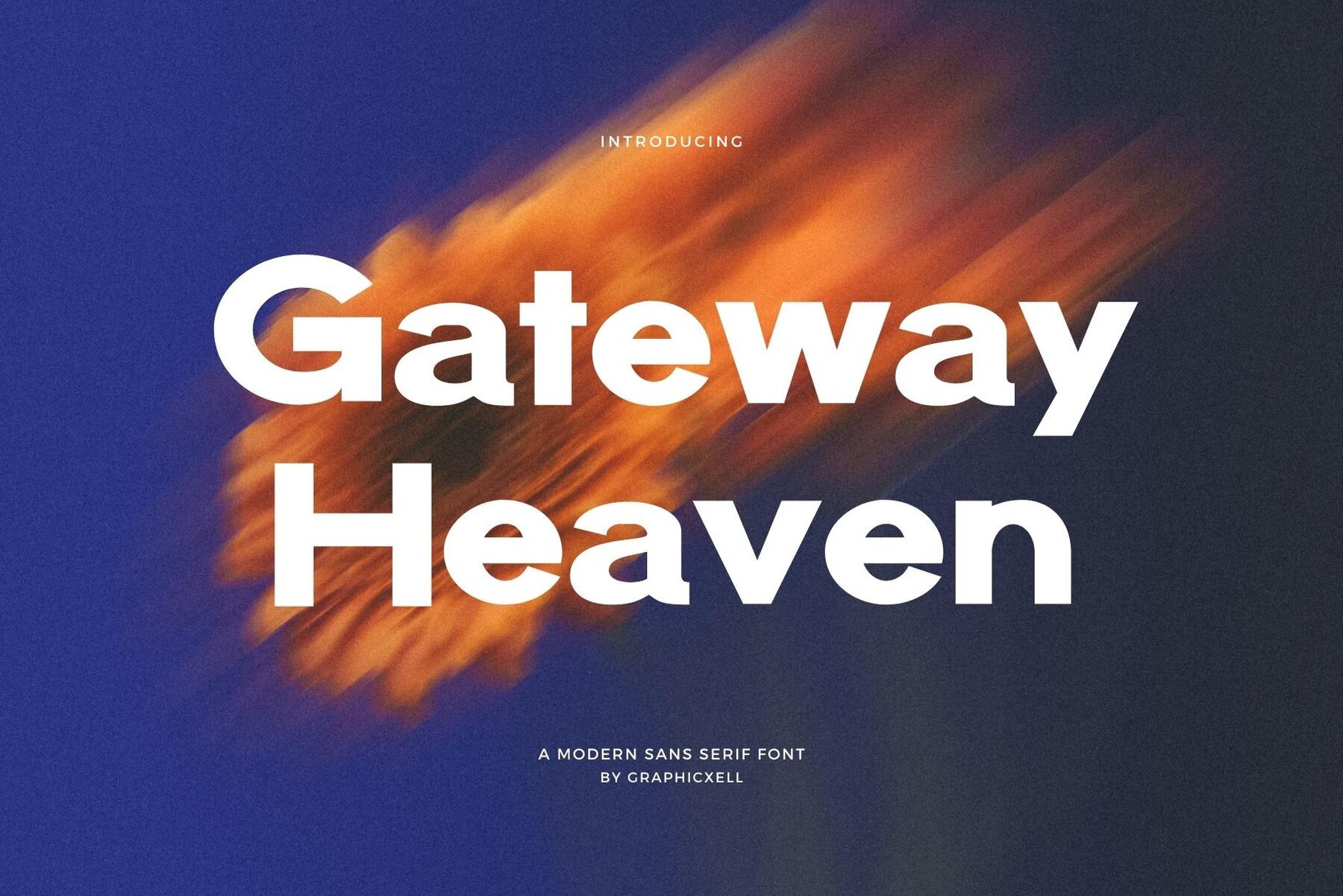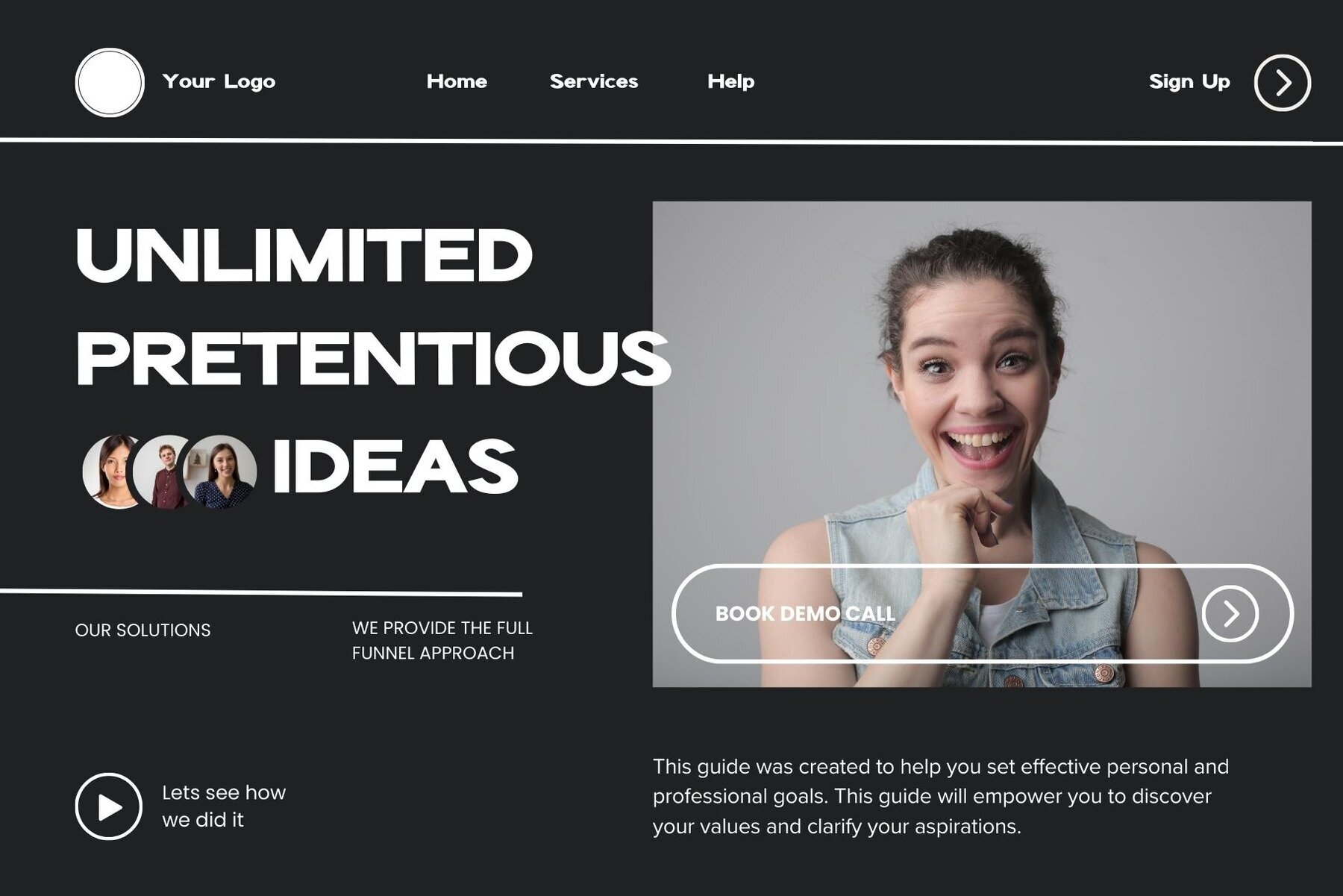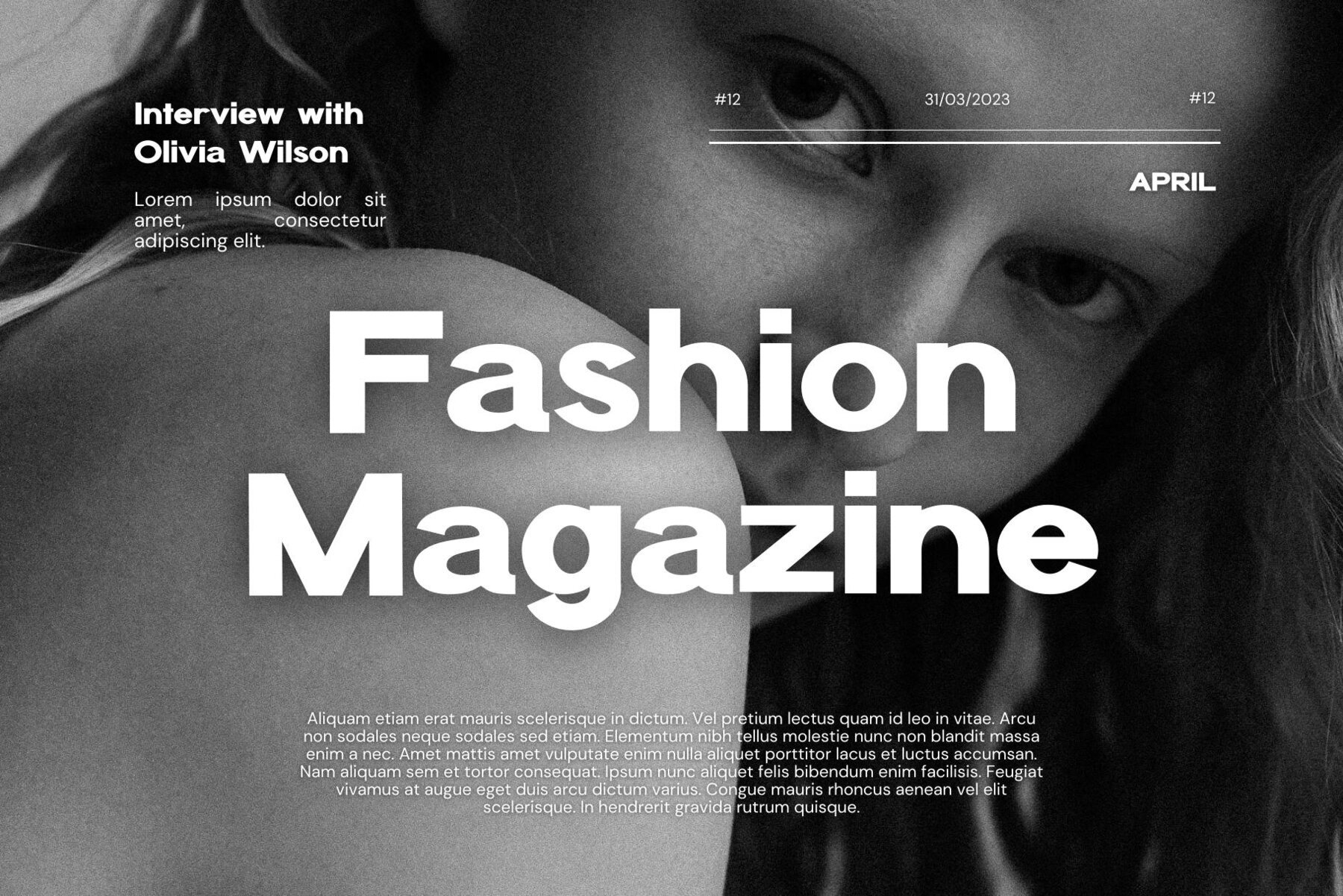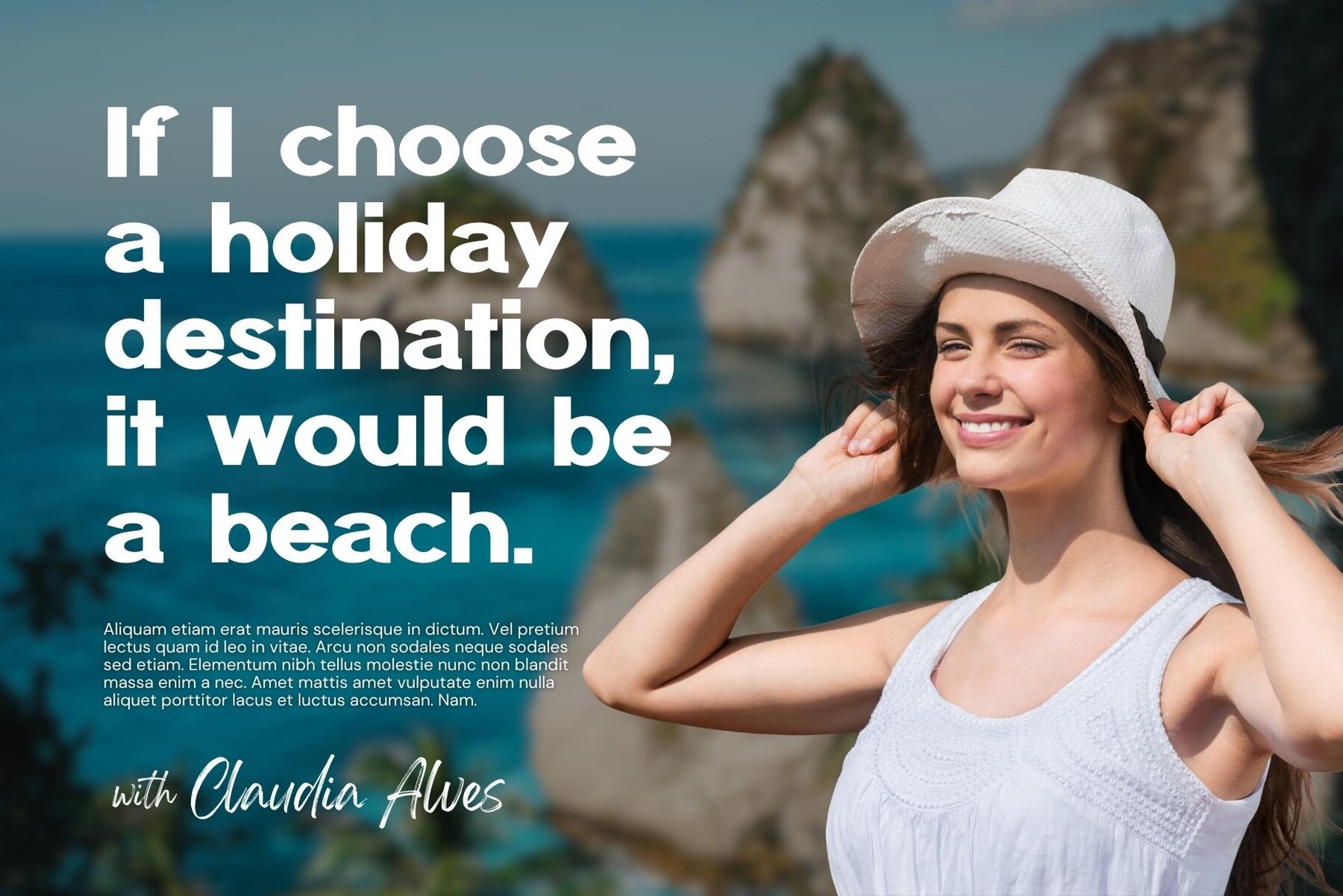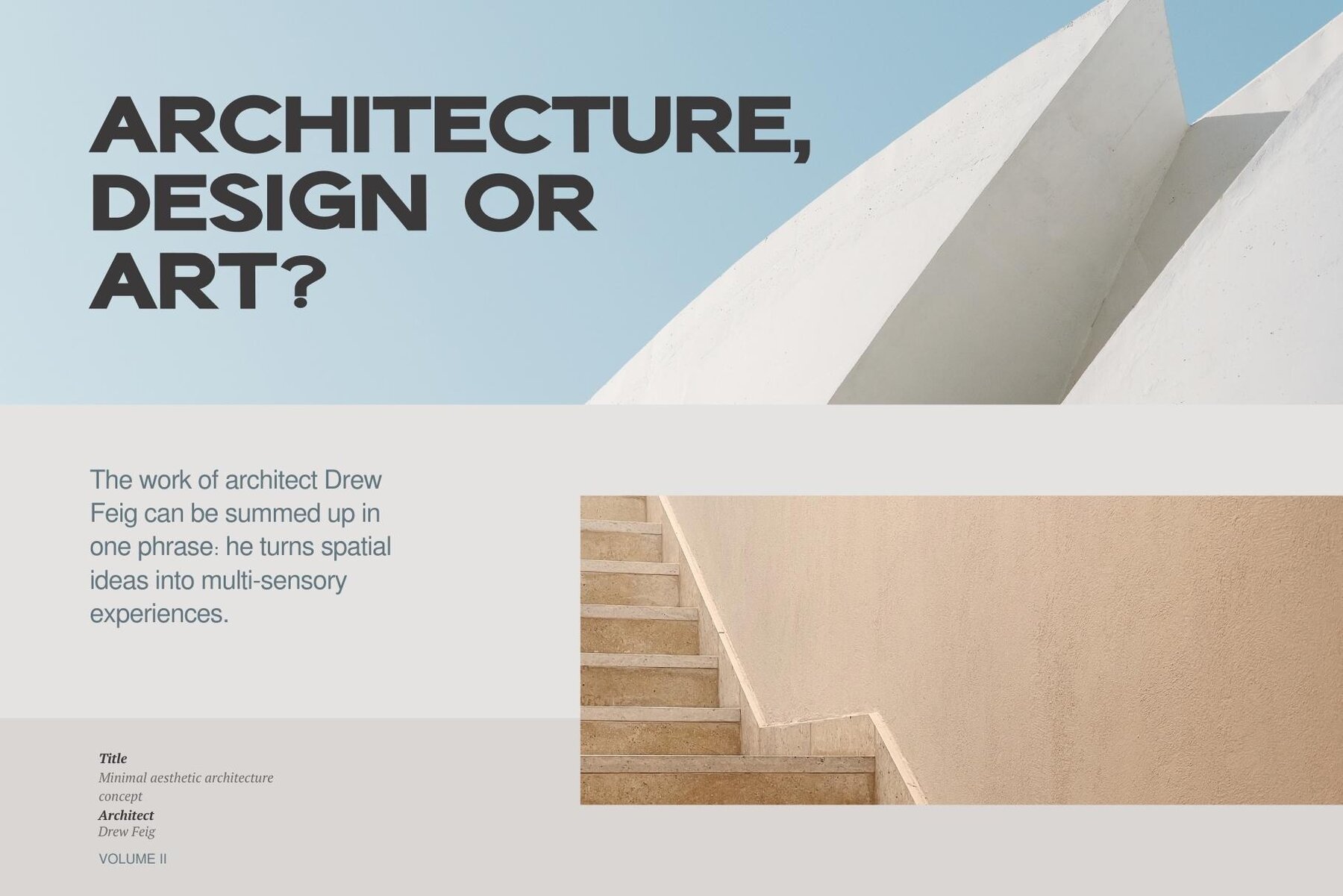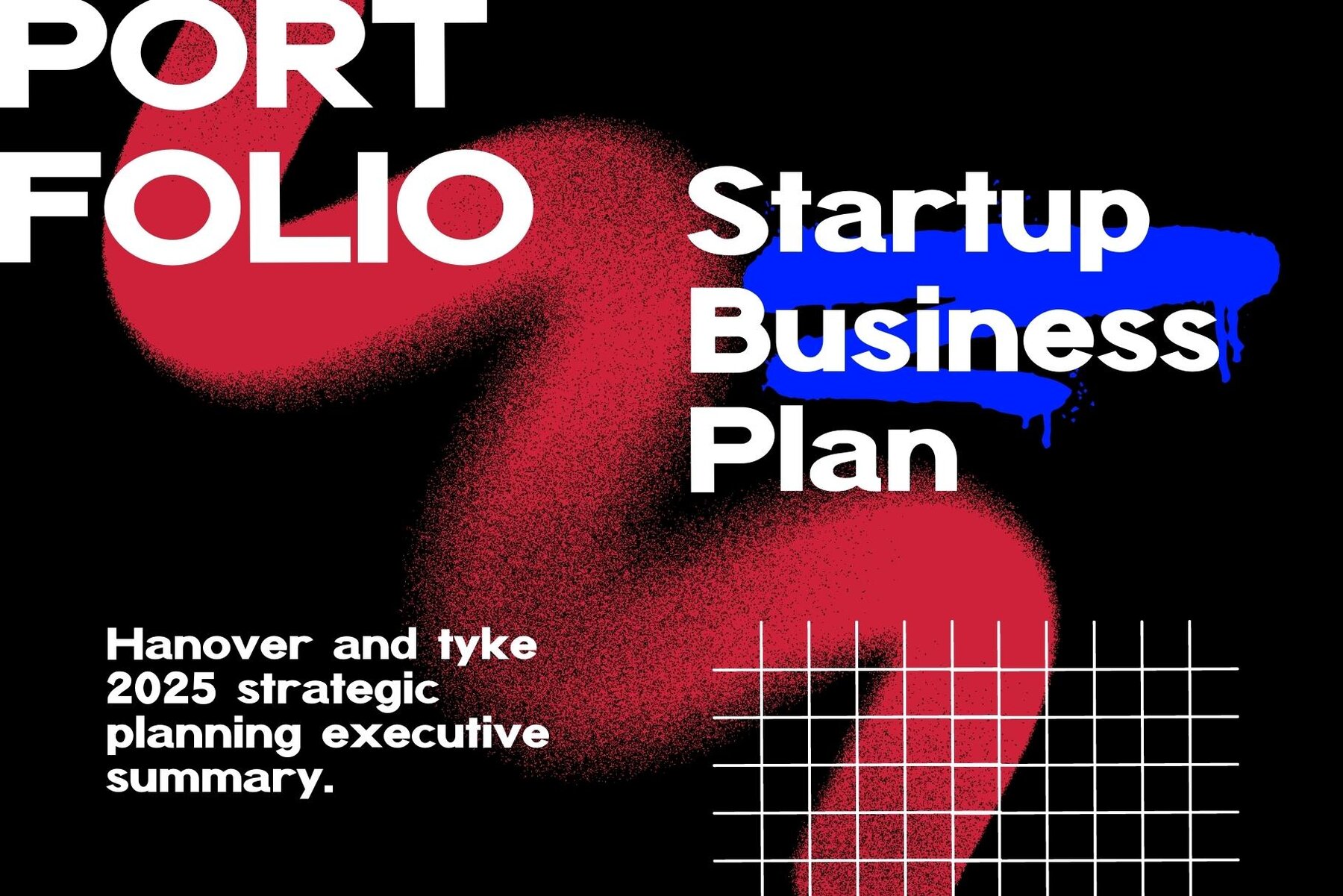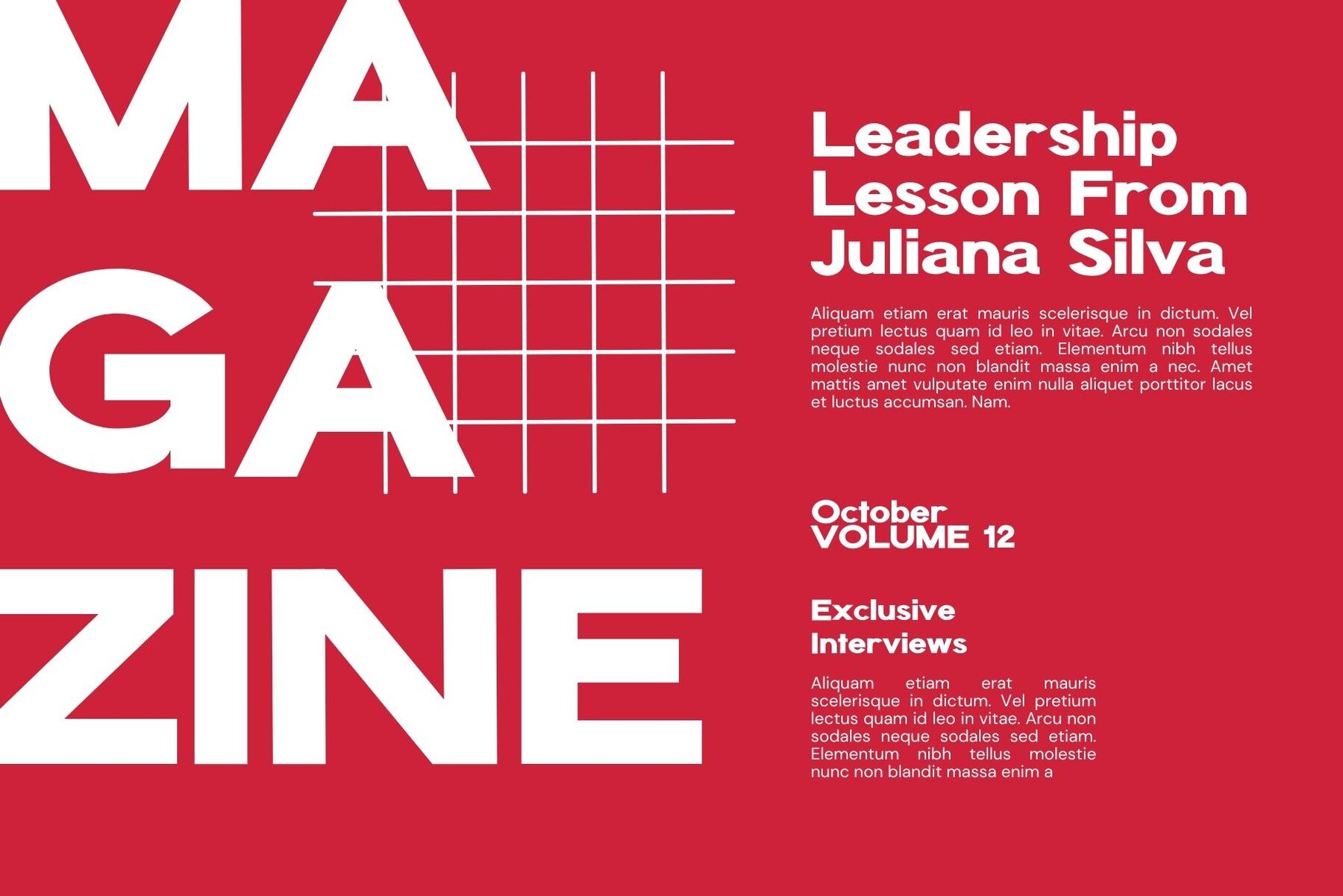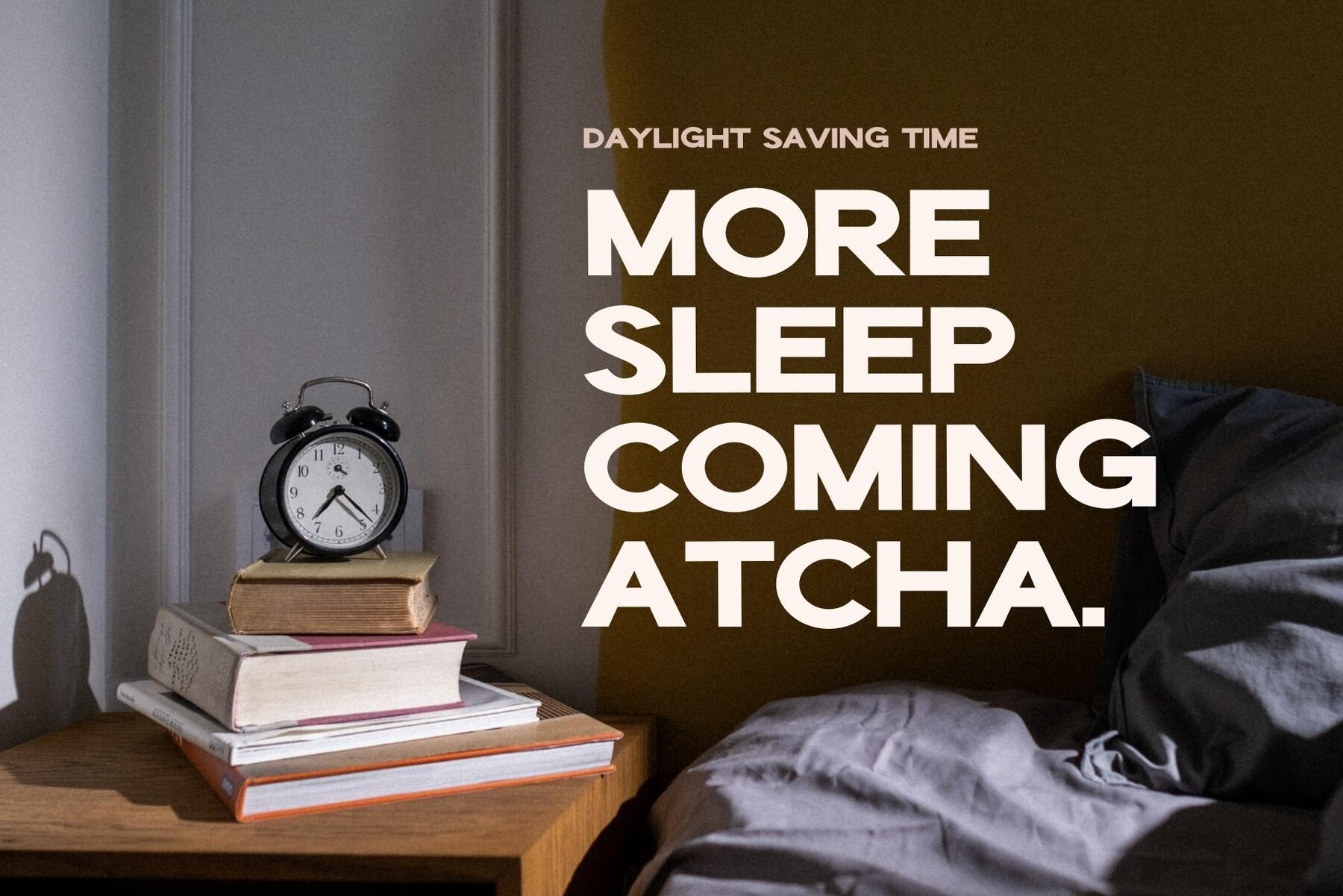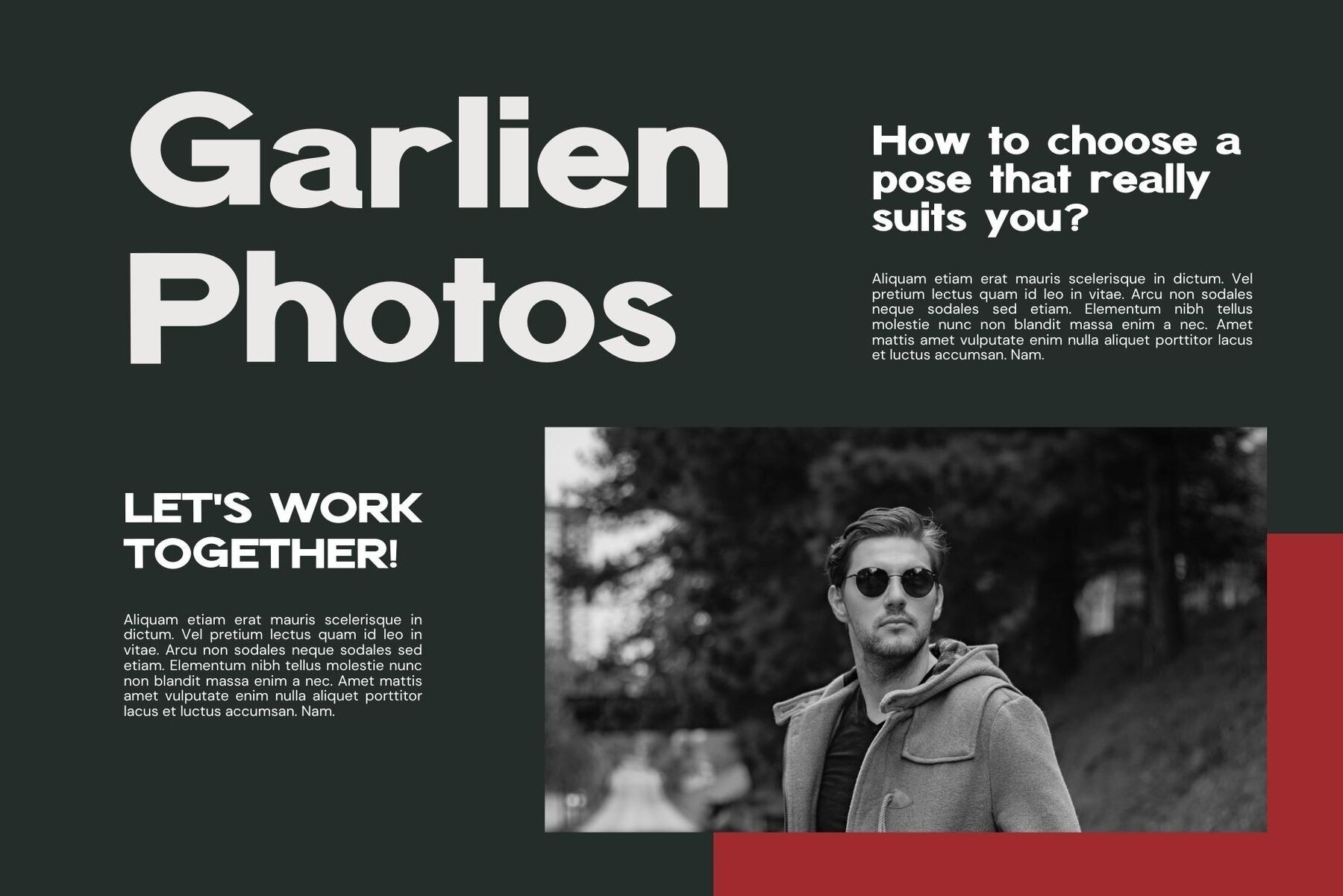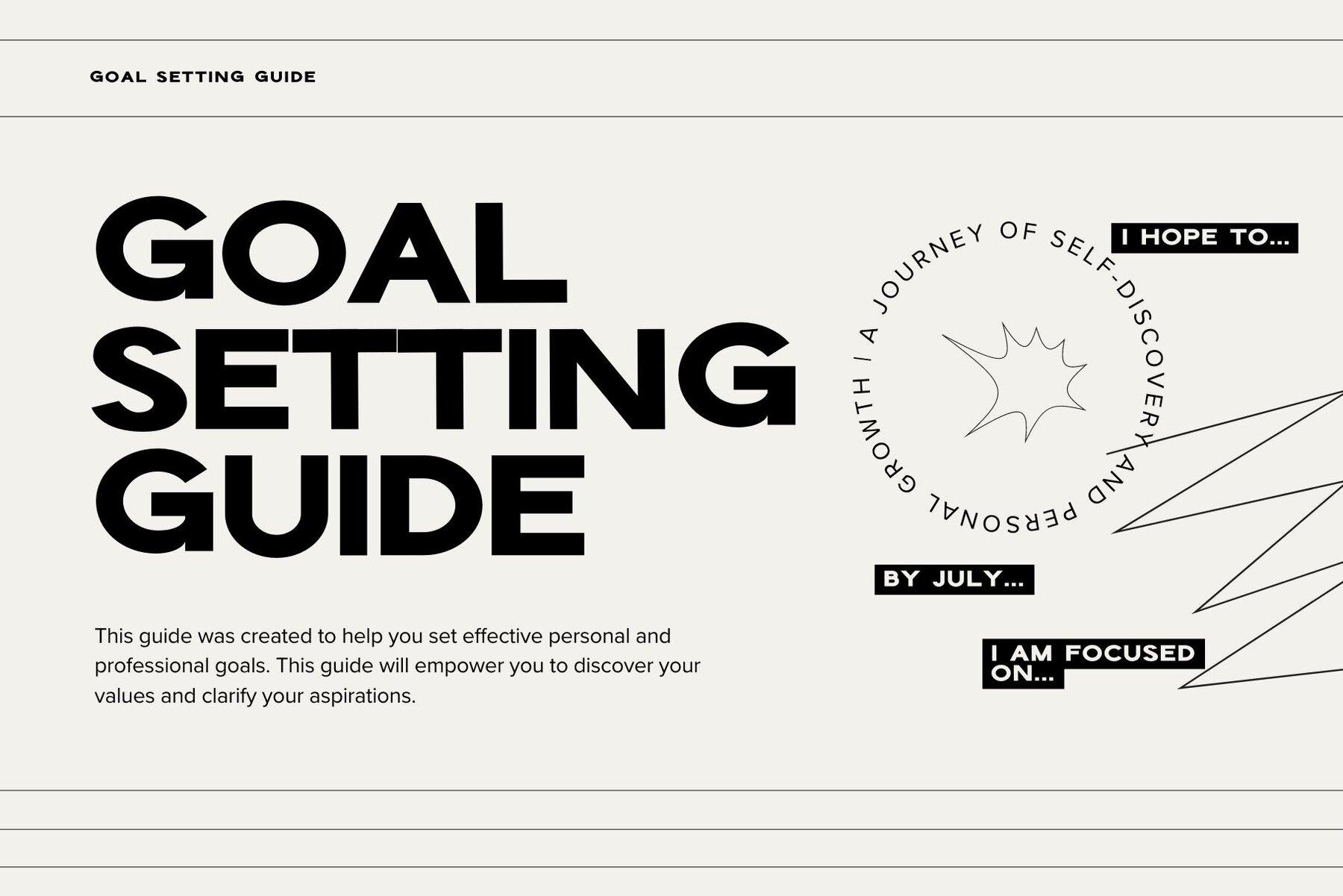
Gateway Heaven Font
Gateway Heaven
inspired by the famous minimalist logo perfect for the purposes of designing templates, brochures, videos, advertising branding, logos, invitation, layout design, elegant crafting, beauty design and more.